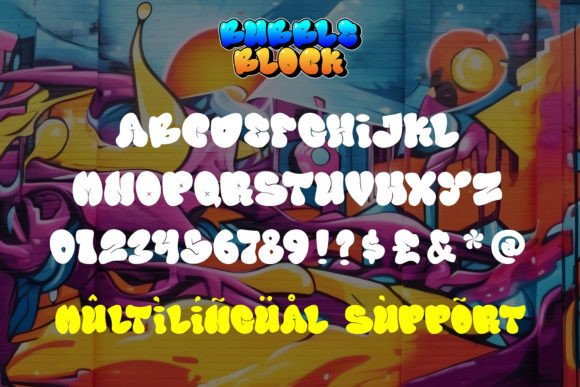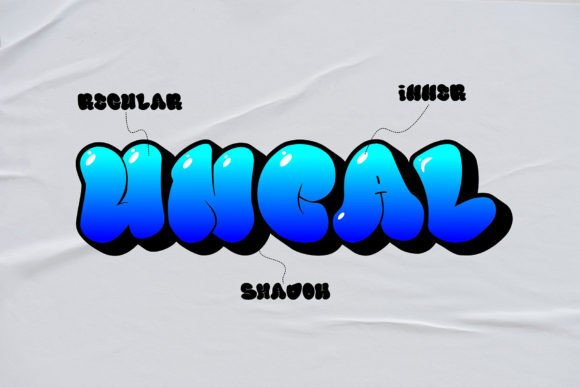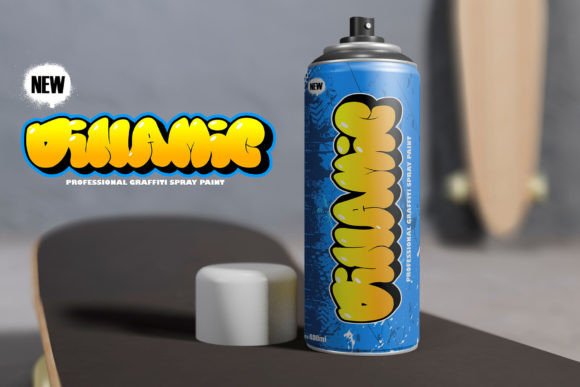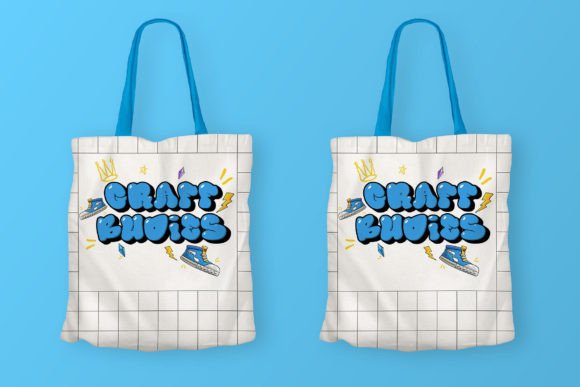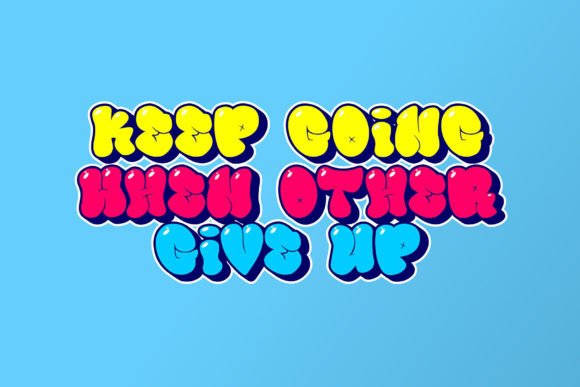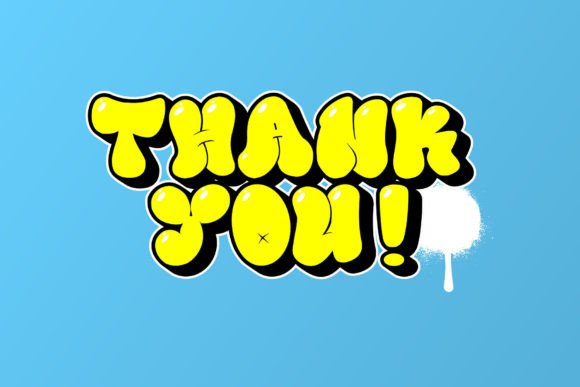
Bubble Block Font: Elevate Your Designs with 3D Graffiti Style
Are you looking for a font that can add a bold, eye-catching touch to your designs? Look no further than the Bubble Block font, a 3D layered graffiti font that can take your text to the next level. With its solid, shadow, and inner shadow styles, this font offers the tools to create a stunning three-dimensional appearance that grabs attention and makes your text stand out.
What is Bubble Block Font?
Bubble Block is a unique font that features a 3D layered style, reminiscent of graffiti art. This font is perfect for designers and crafters who want to add a dynamic, visually impactful touch to their work. The font’s layered style consists of three main components: solid, shadow, and inner shadow. By combining these layers, you can create a 3D effect that gives your text depth and dimension.
Key Features of Bubble Block Font
- 3D Layered Style: The font features a 3D layered style, which includes solid, shadow, and inner shadow layers.
- Graffiti-Inspired: The font’s style is inspired by graffiti art, making it perfect for bold and eye-catching designs.
- Easy to Use: The font is easy to use and customize, making it accessible to designers and crafters of all levels.
- High-Impact Visuals: The font’s 3D effect creates high-impact visuals that grab attention and make your text stand out.
Design Ideas with Bubble Block Font
Bubble Block font is versatile and can be used in a variety of design projects, including:
- Graffiti Art: Use the font to create bold, eye-catching graffiti art that stands out.
- Posters: Add a dynamic touch to your posters with the font’s 3D effect.
- Logos: Use the font to create a bold, memorable logo that grabs attention.
- Social Media Graphics: Elevate your social media graphics with the font’s 3D effect.
Benefits of Using Bubble Block Font
There are several benefits to using Bubble Block font in your designs:
- Attention-Grabbing: The font’s 3D effect and layered style make it attention-grabbing and eye-catching.
- Customizable: The font is easy to customize, allowing you to adjust the settings to your liking.
- Versatile: The font can be used in a variety of design projects, from graffiti art to logos and social media graphics.
- Time-Saving: The font’s layered style saves you time, as you don’t need to create the 3D effect from scratch.
Tips and Tricks for Using Bubble Block Font
Here are some tips and tricks for using Bubble Block font:
- Experiment with Colors: Try out different color combinations to make your text stand out.
- Adjust the Layers: Experiment with adjusting the layers to achieve the desired 3D effect.
- Combine with Other Fonts: Combine Bubble Block font with other fonts to create a unique and eye-catching design.
Bubble Block font is a powerful tool for designers and crafters who want to add a bold, eye-catching touch to their work. With its 3D layered style and easy-to-use features, this font is perfect for creating stunning graffiti art, posters, logos, and social media graphics. Whether you’re a seasoned designer or just starting out, Bubble Block font is a great addition to your design toolkit.